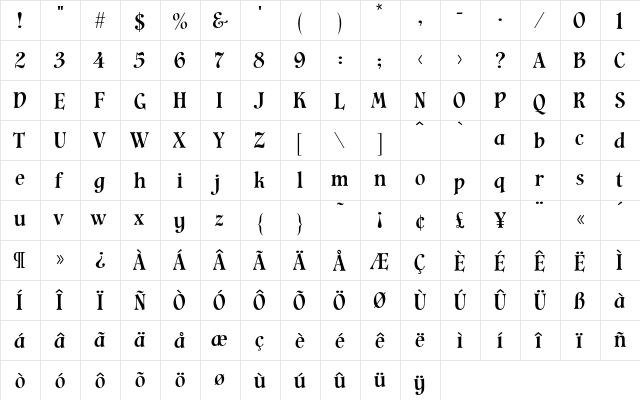
Cavalier Regular
Design Context for Cavalier Typeface
Cavalier is a composed and adaptable typeface that performs quietly and consistently across a wide range of design contexts.